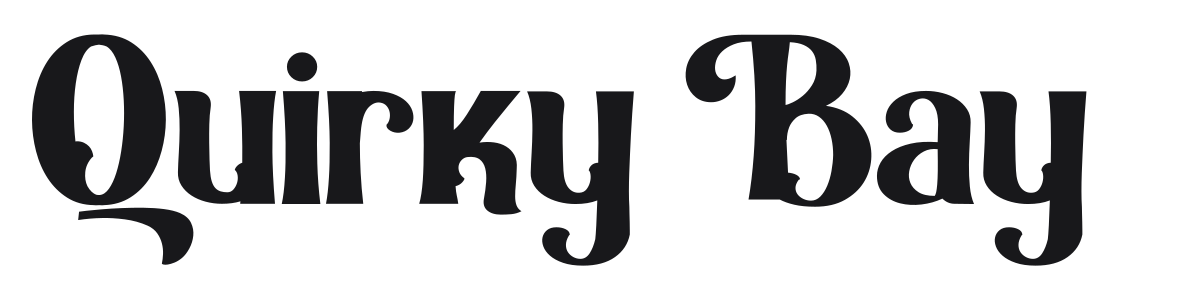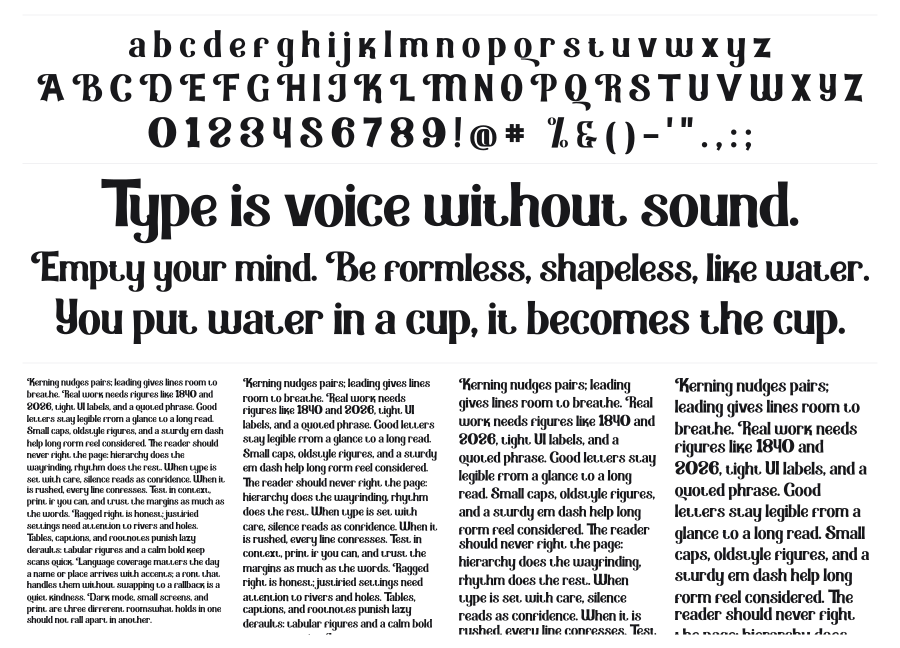
Quirky Bay
Quirky Bay is a bold display serif with extreme stroke contrast and dramatically tapered serifs that curl and taper into distinctive terminals. The wide, confident proportions give it a luxe, boutique personality that sits somewhere between Victorian elegance and contemporary charm. It draws attention at headline sizes and suits branding, packaging, and wedding stationery where character is more important than restraint.